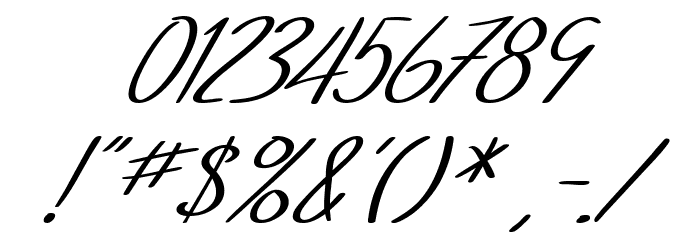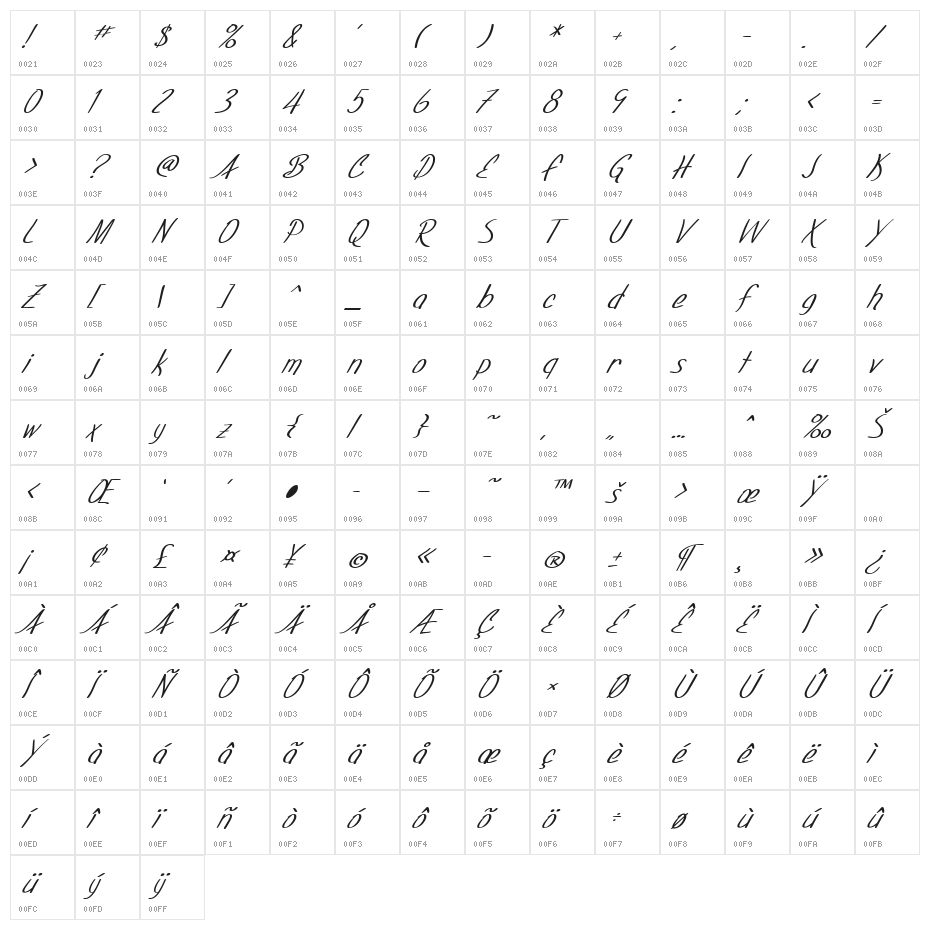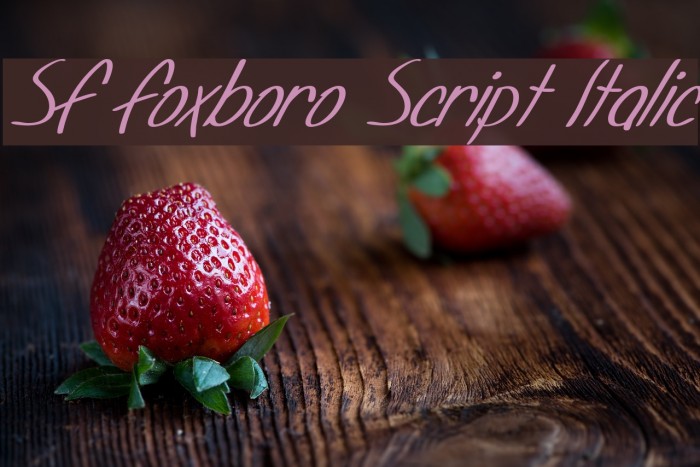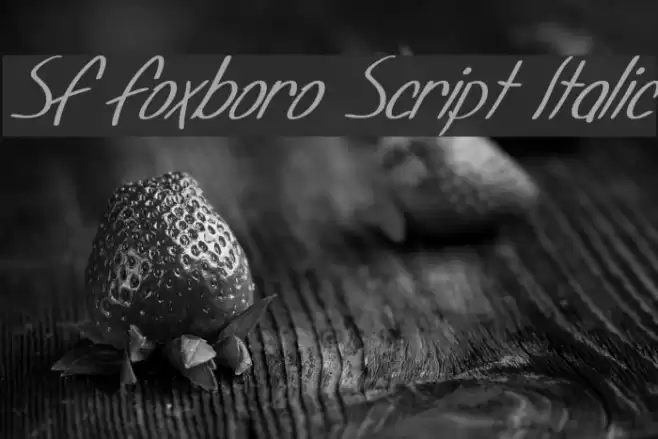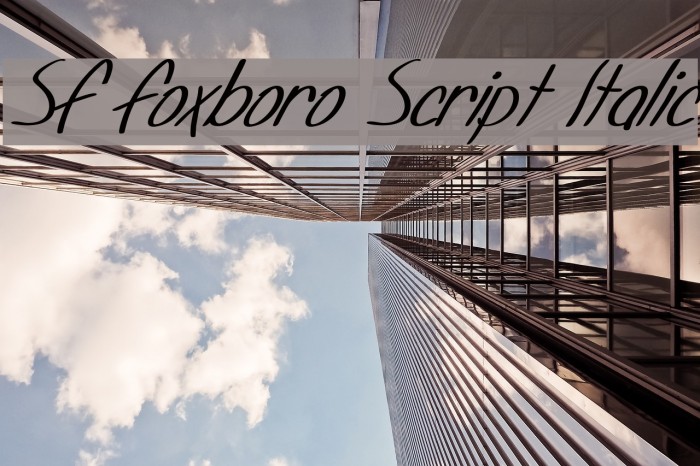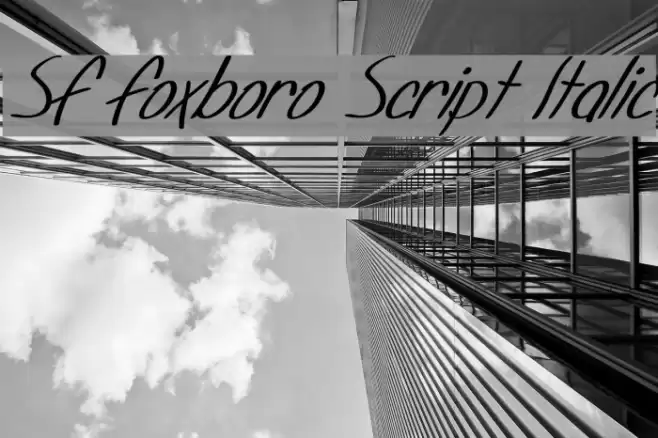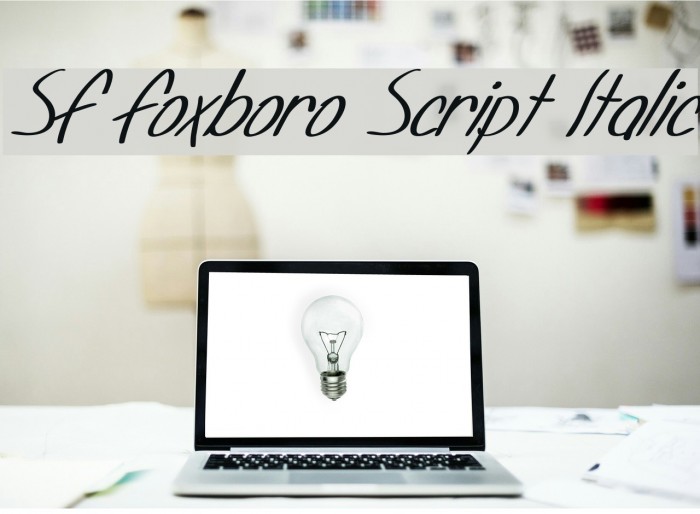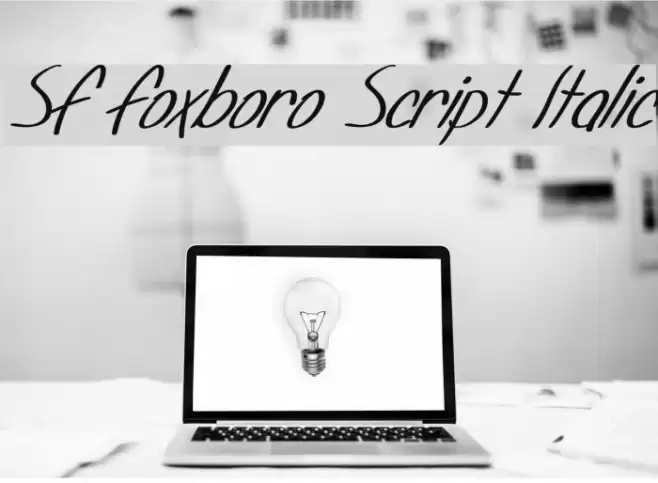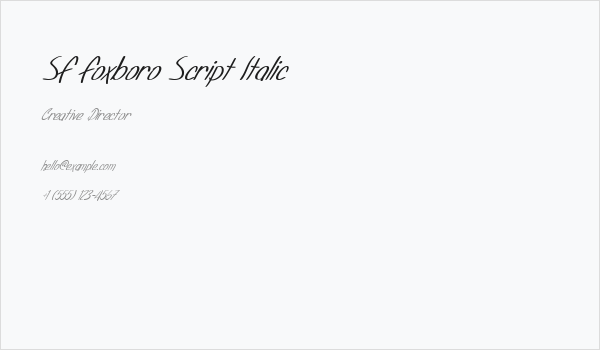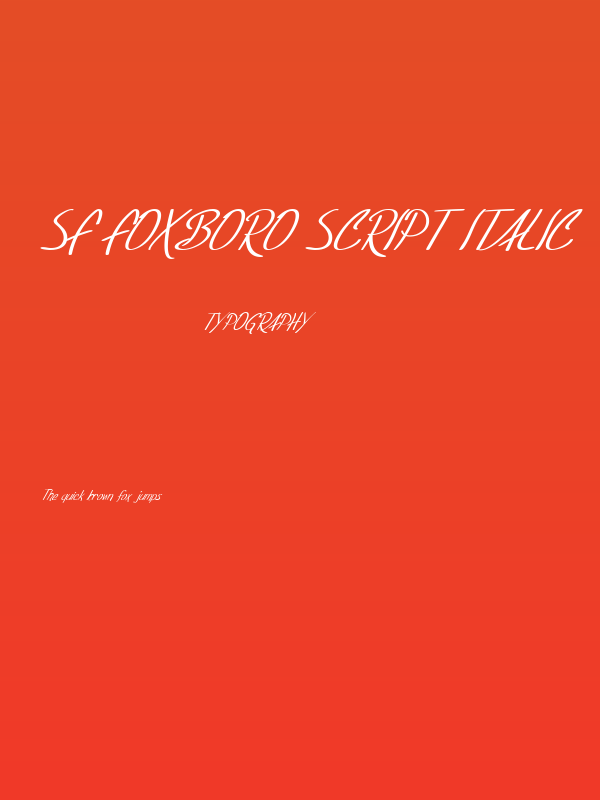
SF Foxboro Script Italic Font
SF Foxboro Script Italic Description
This font exudes a dynamic and elegant script style, characterized by its fluid and cursive letterforms. The strokes are smooth and continuous, creating a sense of motion and grace. Each character is distinct yet harmoniously connected, reflecting a handwritten aesthetic. The uppercase letters are bold and slightly slanted, adding a touch of sophistication, while the lowercase letters maintain a consistent flow. The numerals and special characters are crafted with the same attention to detail, ensuring uniformity across the typeface. This font is ideal for projects that require a personal and artistic touch.